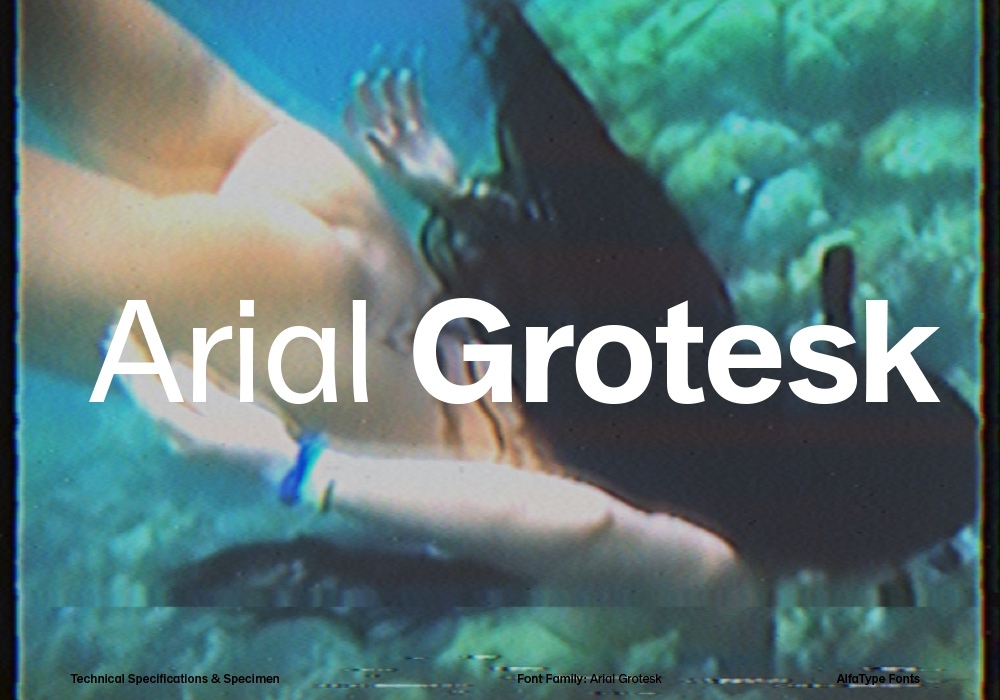
Arial Grotesk Font
Arial Grotesk Font is perfect for modern corporate branding, minimalist web design, architectural presentations, contemporary magazine layouts, clean product packaging, tech company interfaces, editorial headlines, professional signage systems, and streamlined brand identity projects.
What makes Arial Grotesk Font exciting is its perfect embodiment of classic Swiss design principles combined with contemporary refinement that creates timeless visual appeal. The font features pure geometric forms with carefully balanced proportions that eliminate unnecessary decorative elements while maximizing readability and impact. Its neo-grotesk heritage ensures exceptional versatility across all media, making it ideal for brands that value clarity, precision, and sophisticated simplicity in their visual communication strategy.
Arial Grotesk Font family includes comprehensive weights ranging from Ultra Light to Black, typically featuring Thin, Light, Regular, Medium, Bold, and Heavy variations with corresponding italic styles. The family often includes condensed and extended versions with extensive international character support, providing designers with complete typographic flexibility for creating sophisticated hierarchical structures and global brand applications.